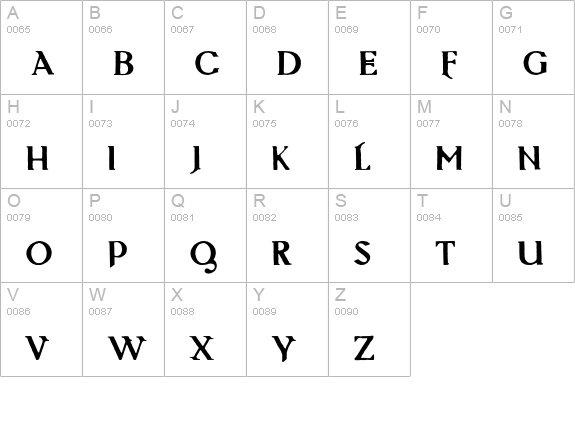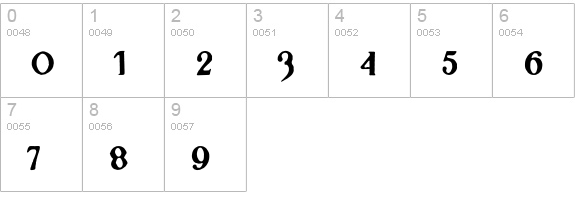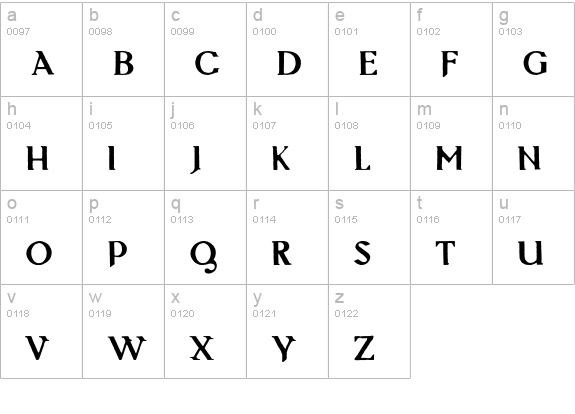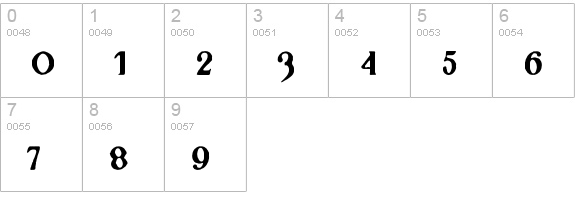
Masoch-Dirach Font Details
Introducing Masoch-Dirach, a stunning and versatile font that is perfect for adding a touch of elegance and sophistication to any design project. With its meticulously crafted letterforms and exquisite attention to detail, Masoch-Dirach is sure to captivate and inspire. This font boasts a unique blend of modernity and classic beauty, making it suitable for a wide range of applications, from branding and logos to packaging and editorial design. Its graceful curves and clean lines effortlessly convey a sense of professionalism and refinement. But what truly sets Masoch-Dirach apart is its accessibility. This font is freely available to download at FontsMarket.com, allowing designers and typographers to unleash their creativity without any financial constraints. Whether you're a seasoned professional or just starting out on your design journey, Masoch-Dirach offers an opportunity to elevate your work without breaking the bank. Furthermore, Masoch-Dirach is crafted with the utmost attention to legibility and readability, ensuring that your message comes across clearly and effectively. Its versatile range of weights and styles provides endless possibilities for creating eye-catching headlines, elegant body text, or even playful display typography. So why wait? Download Masoch-Dirach today and experience the joy of working with a high-quality, professionally designed font that is both visually stunning and freely available. With Masoch-Dirach, you'll never have to compromise on style or budget again. Unleash your creativity and make a lasting impression with this extraordinary font.